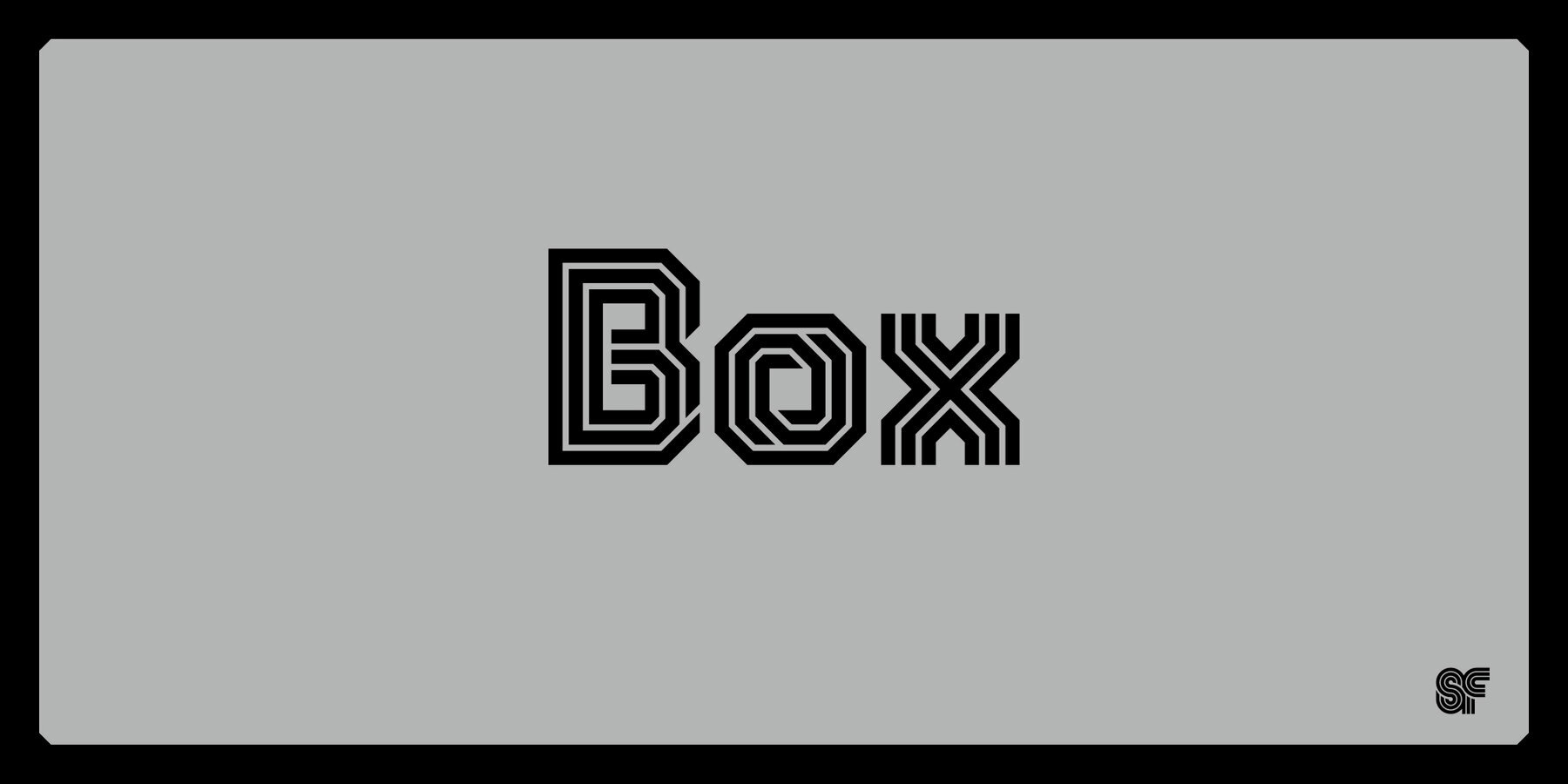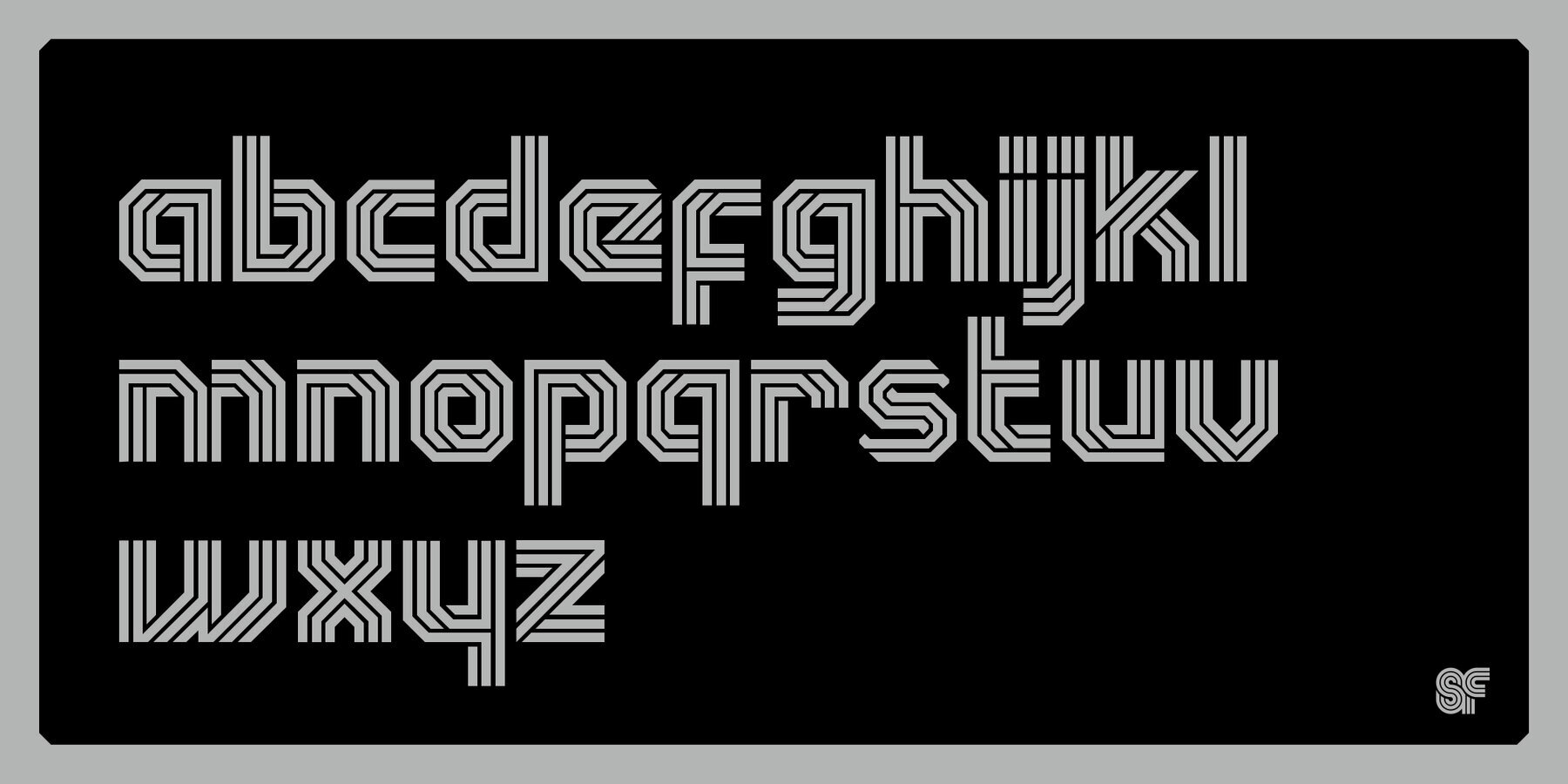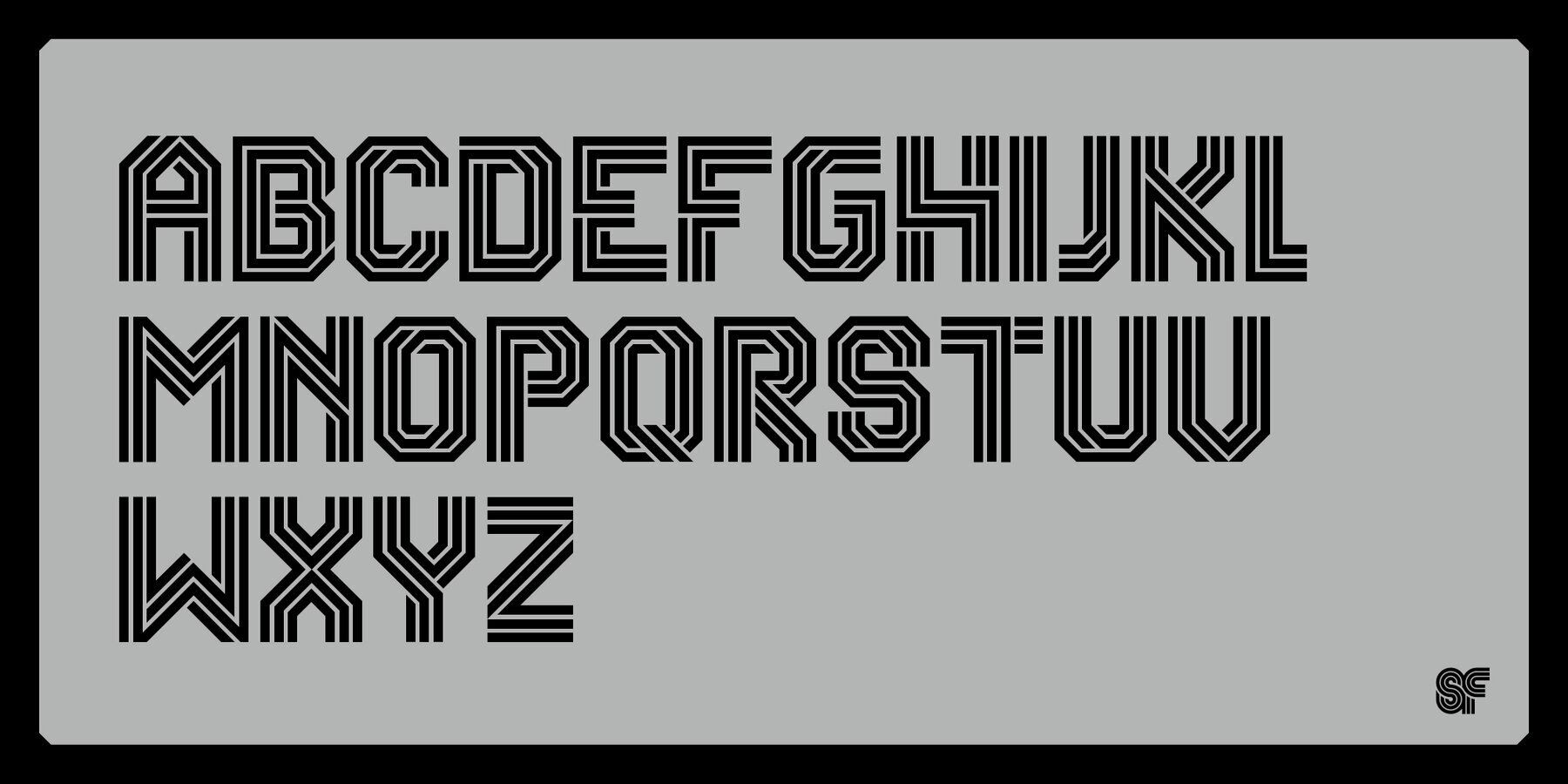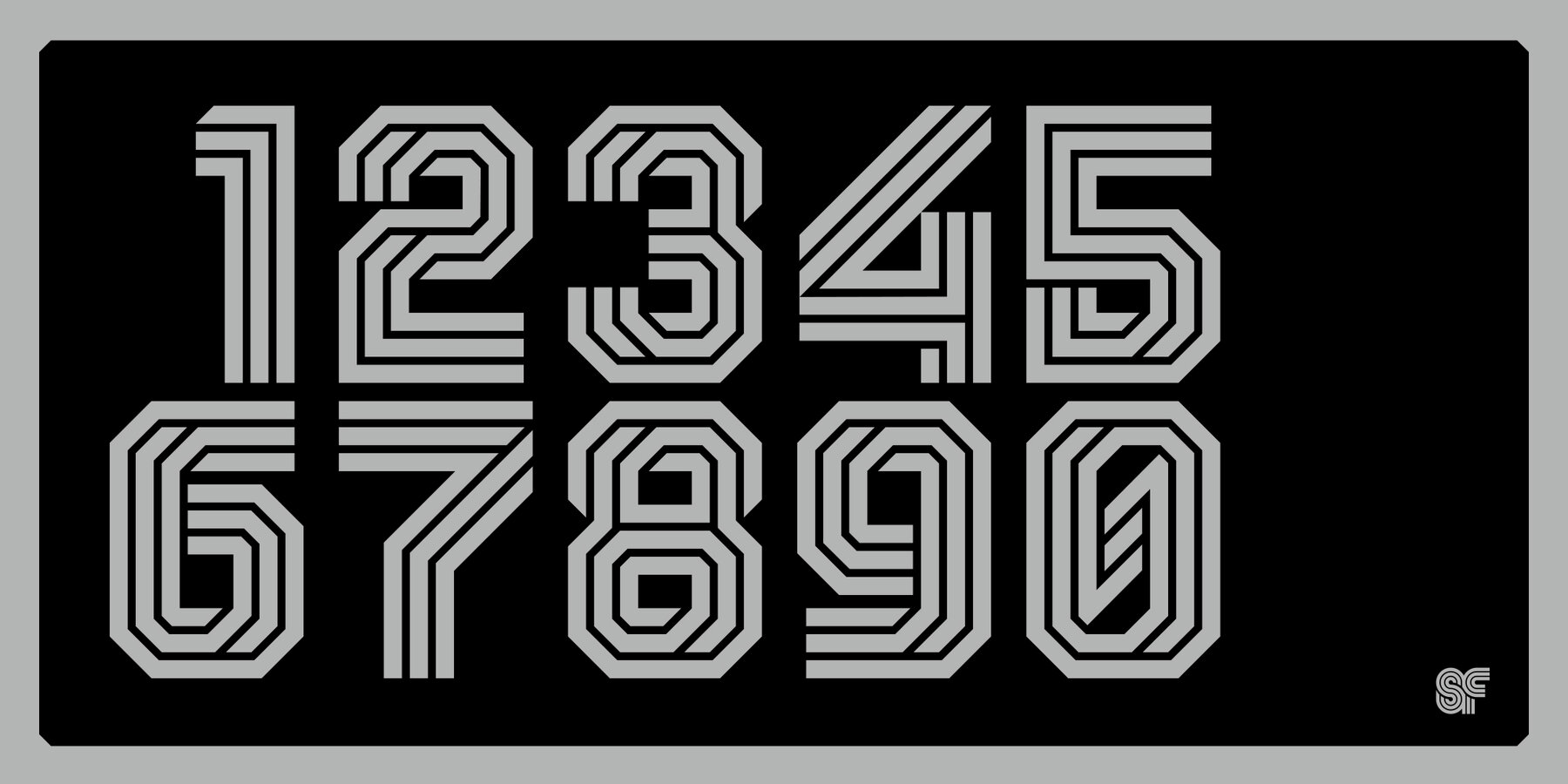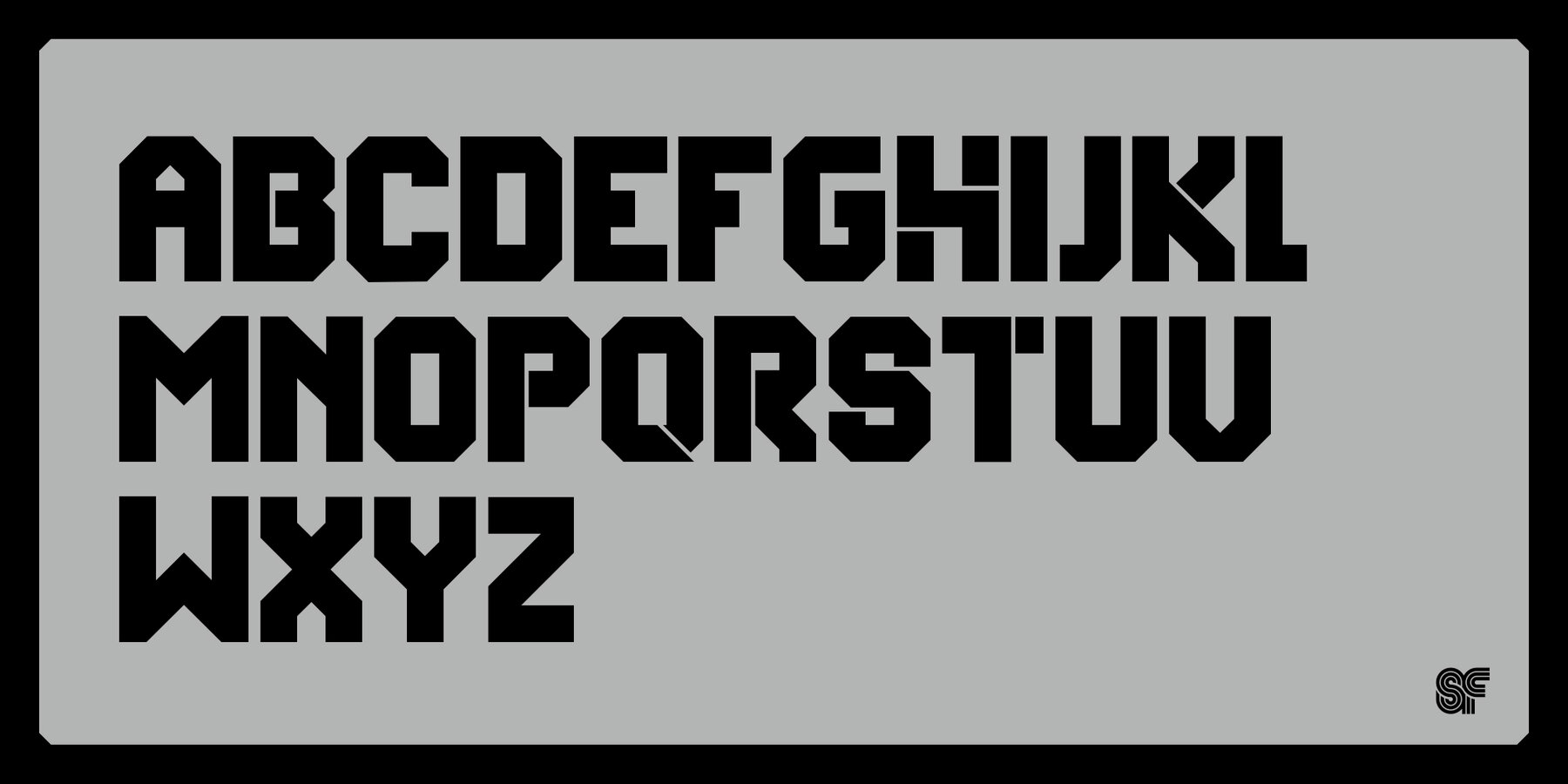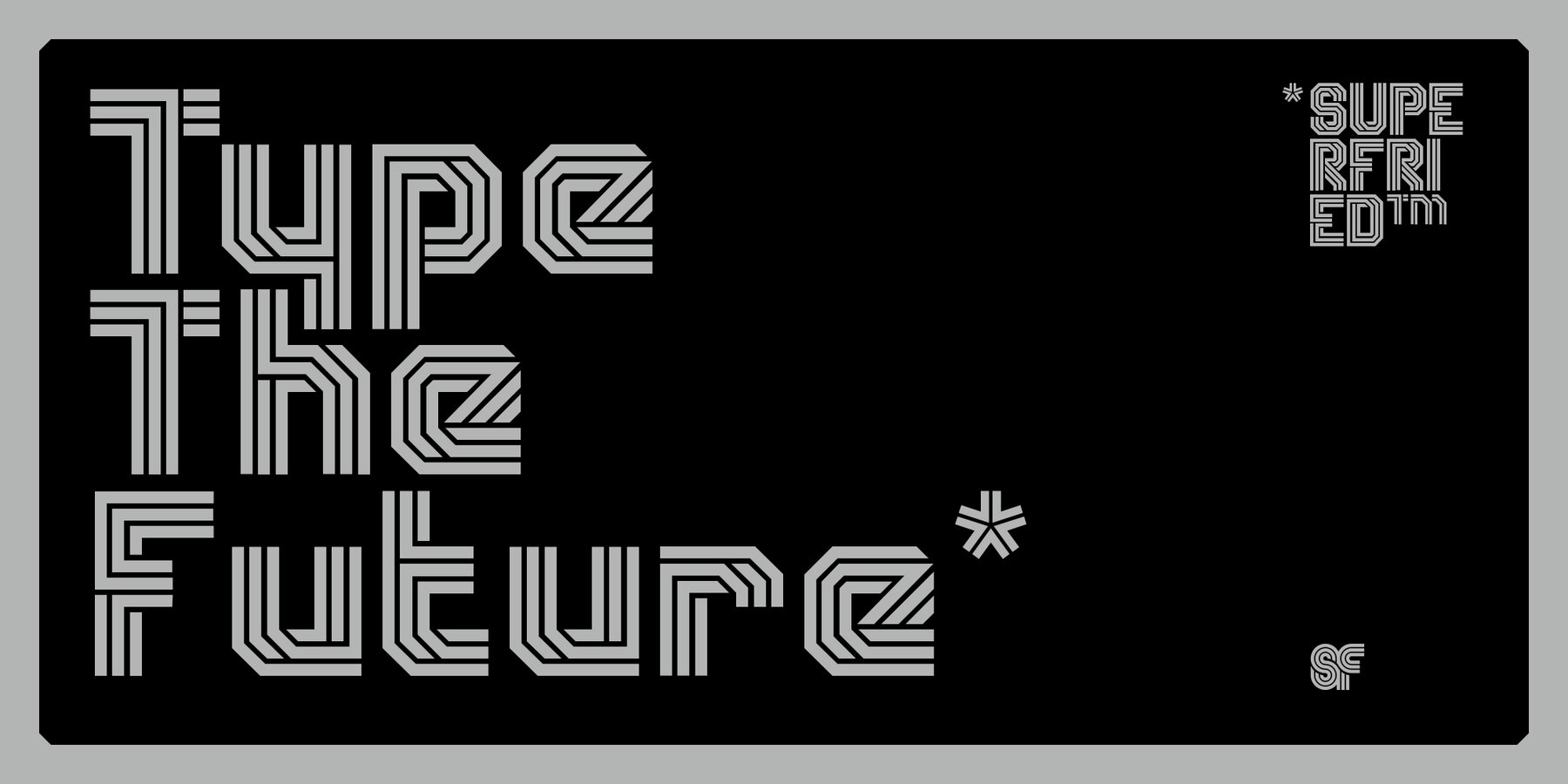
Box Font
NEW – Remastered for 2025! Originally crafted by Superfried in 2014, Box is an innovative retro display typeface characterized by its unique square-shaped glyphs. This design choice results in a bold and striking appearance, perfect for making a statement. The latest update includes refined character designs, the introduction of two new font styles, and enhanced spacing for improved readability. With a total of 266 glyphs and available in six versatile styles, Box is ideal for various applications, including branding, editorial design, and web projects. Elevate your design with the distinctive charm of Box!